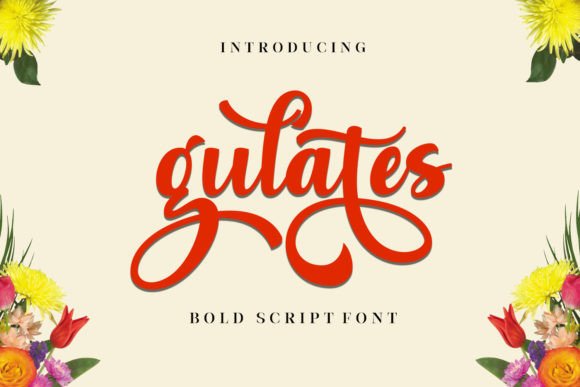
Introducing Gulates Font, a calligraphy typeface designed to evoke the softest caress of romance. Its characters pirouette and intertwine, dancing effortlessly along the baseline like a whispered secret. Gulates is not just a font; it's an invitation to lose yourself in the sweet embrace of elegance.
Picture this: a wedding invitation adorned with Gulates Font, its loops and curves flowing like a river of grace, beckoning you to a celebration of love. Or, envisage a logo emblazoned with Gulates, its swirls and flourishes adding a touch of timeless sophistication to your brand. The possibilities are endless, like the stars twinkling in a moonlit sky.
But Gulates Font is more than just beautiful; it's versatile. Its casual yet elegant demeanor makes it the perfect choice for any occasion, from the delicate touch of a wedding sign to the bold statement of a poster. Whether you're crafting a heartfelt letterhead or designing an eye-catching label, Gulates Font is your steadfast companion, adding a touch of magic to every creation.
With Gulates Font, you're not just downloading a font; you're embracing a world of endless possibilities. Its characters are like tiny masterpieces, ready to weave their enchanting spell over your designs.
So, embark on this extraordinary journey with Gulates Font. Let your creativity soar, let your imagination dance, and let the sweet symphony of its curves and flourishes guide you to design masterpieces that will leave a lasting impression.